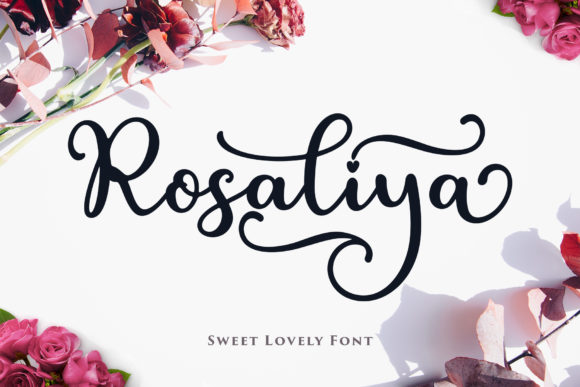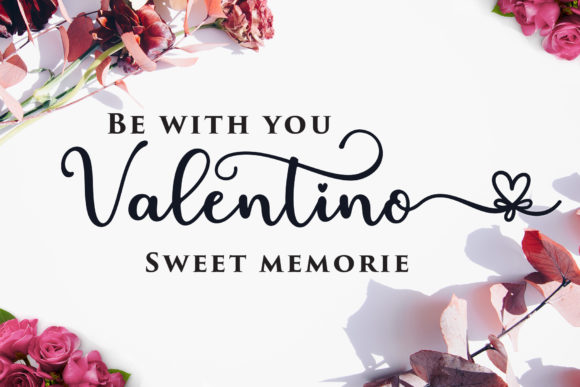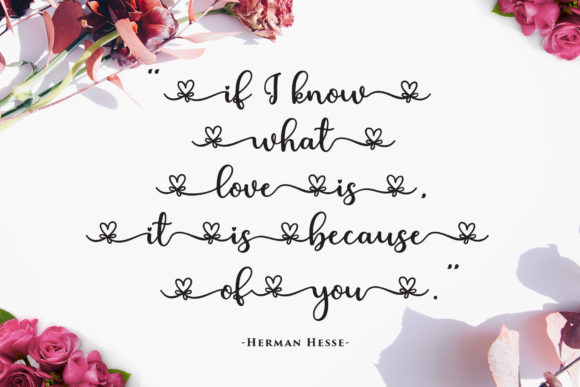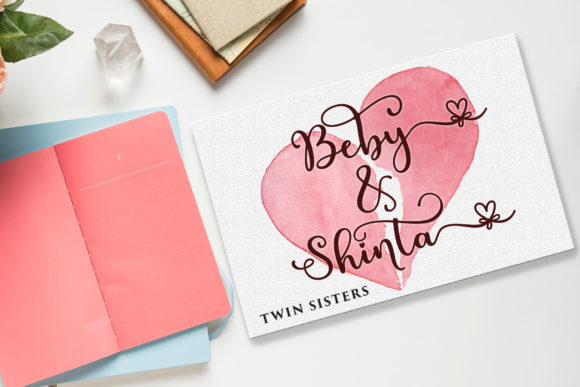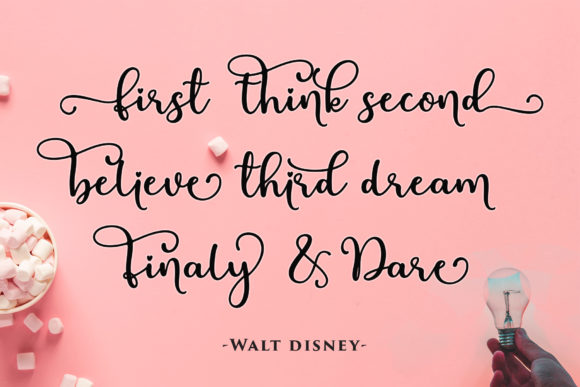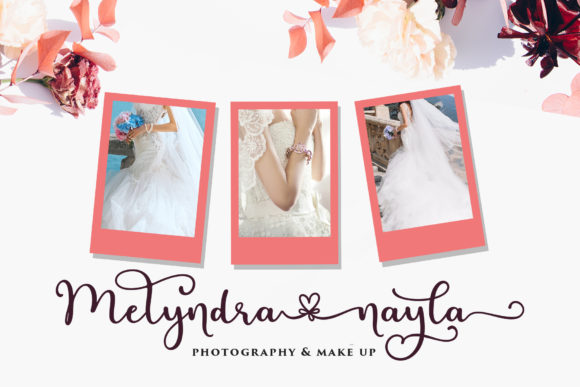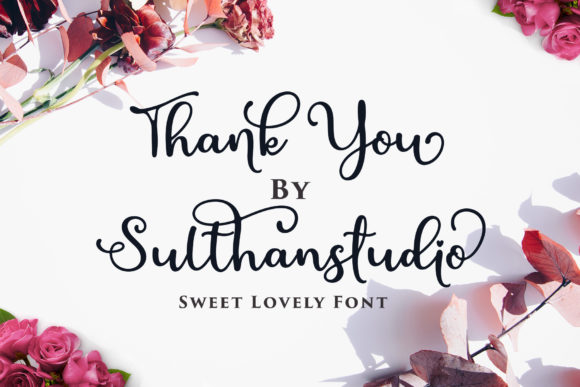
Rosaliya Font
Rosaliya script is a new, fresh calligraphy font that is attractive and elegant, with a few cute ties in the heart that can be connected.
Great for invitations, greeting cards, branding materials, business cards, quotes, posters, and more!